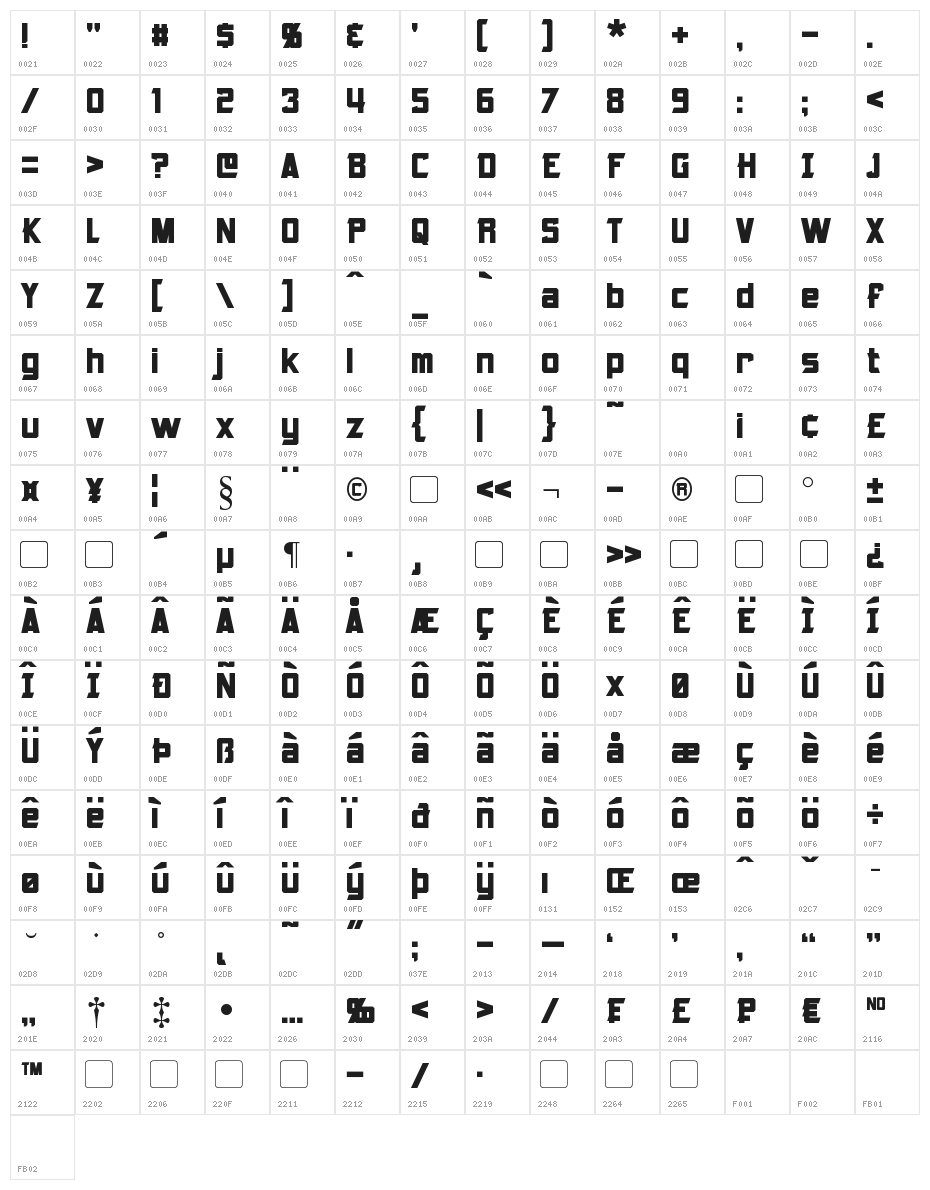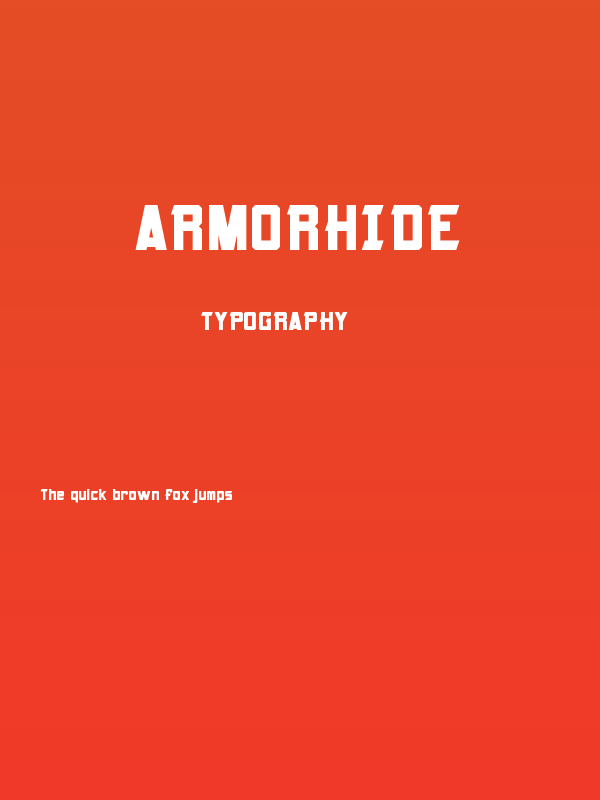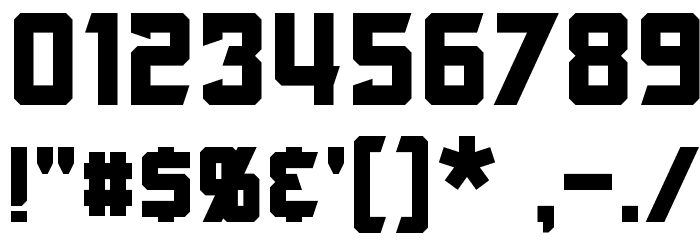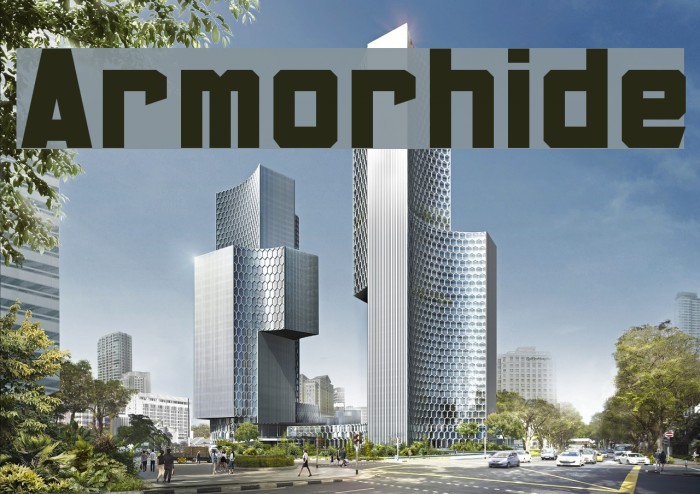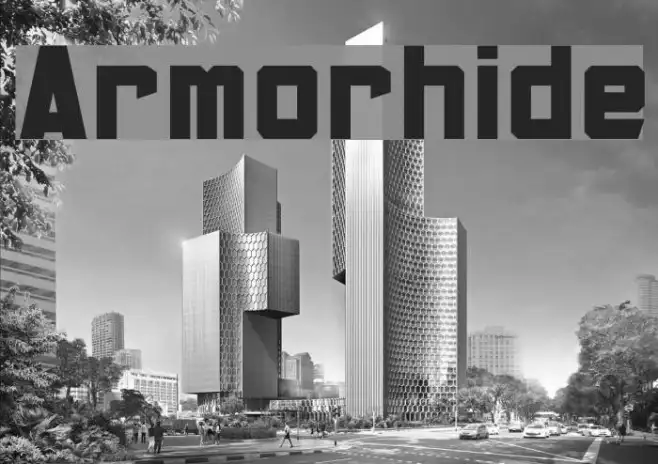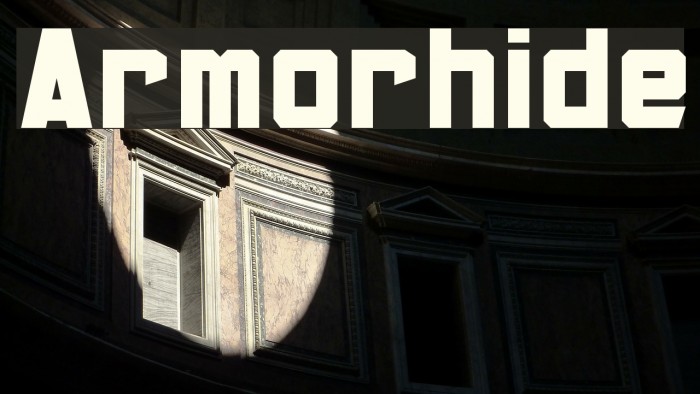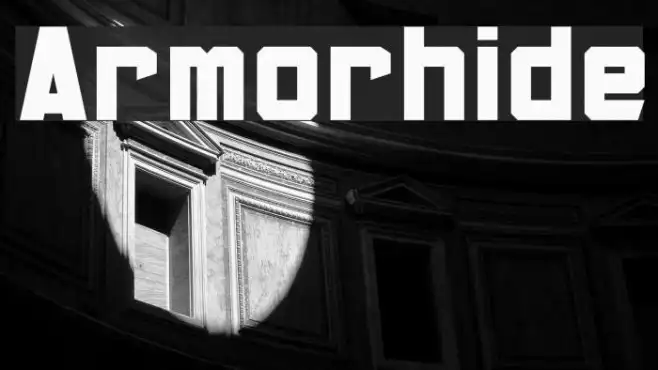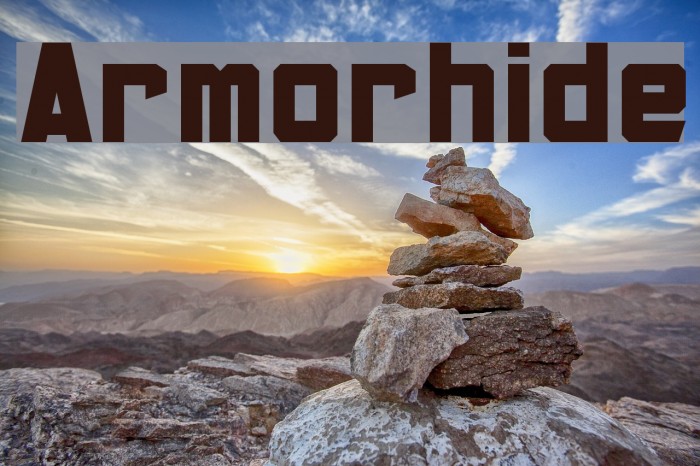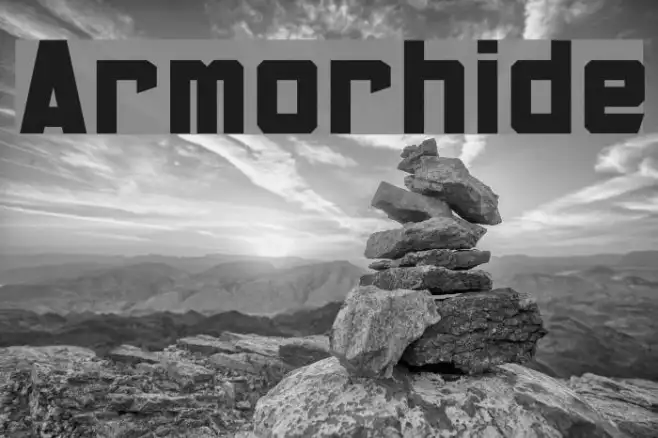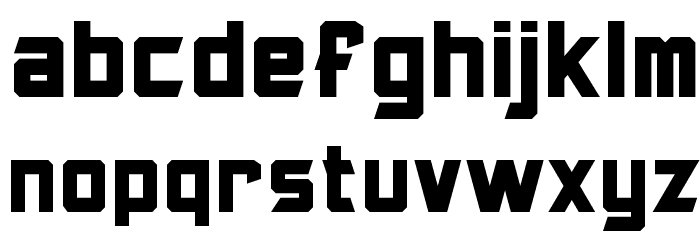
Armorhide Font
Armorhide Description
This font features a bold, geometric design with a strong, industrial feel. The characters are blocky and angular, with sharp edges and a uniform thickness throughout. The uppercase and lowercase letters maintain a consistent style, emphasizing a sense of strength and durability. Numbers and special characters are designed to match the robust aesthetic, making them suitable for impactful displays. The font's design is reminiscent of military or machinery themes, with a modern twist that makes it versatile for various applications.